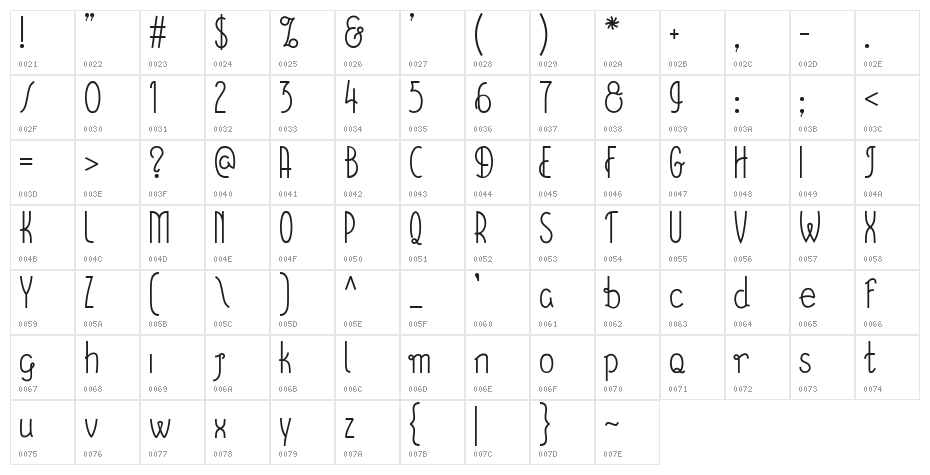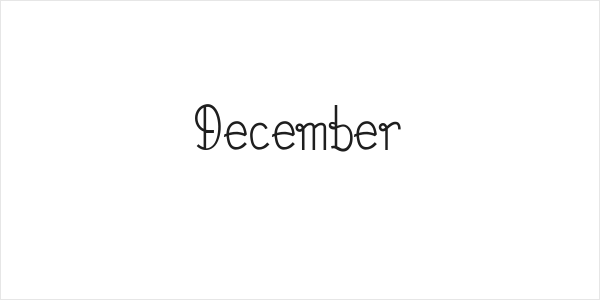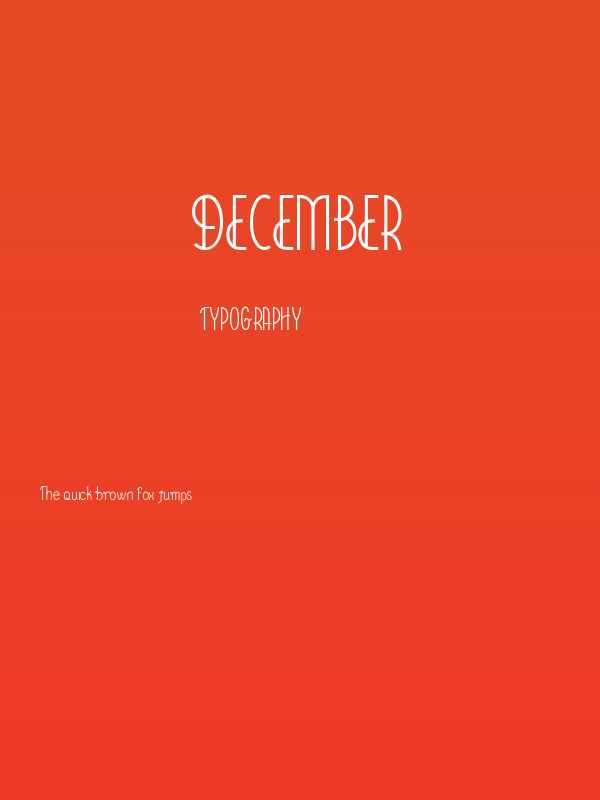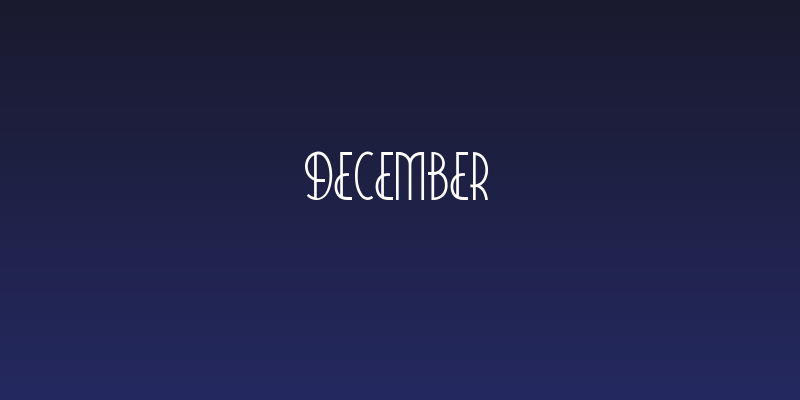
December Font
December Description
This font features a unique and artistic design with elongated, narrow characters that have a playful and whimsical feel. The uppercase letters are tall and slender, with some characters incorporating loops and curves that add a decorative touch. The lowercase letters maintain a consistent style, with rounded edges and a slight slant, contributing to a cohesive look. Numbers and special characters are designed to match the overall aesthetic, with a mix of straight and curved lines. This font's distinct style makes it stand out, offering a blend of elegance and creativity.
| Proposed Projects | Ideal for creative projects such as invitations, greeting cards, posters, and branding materials that require a playful yet elegant touch. |